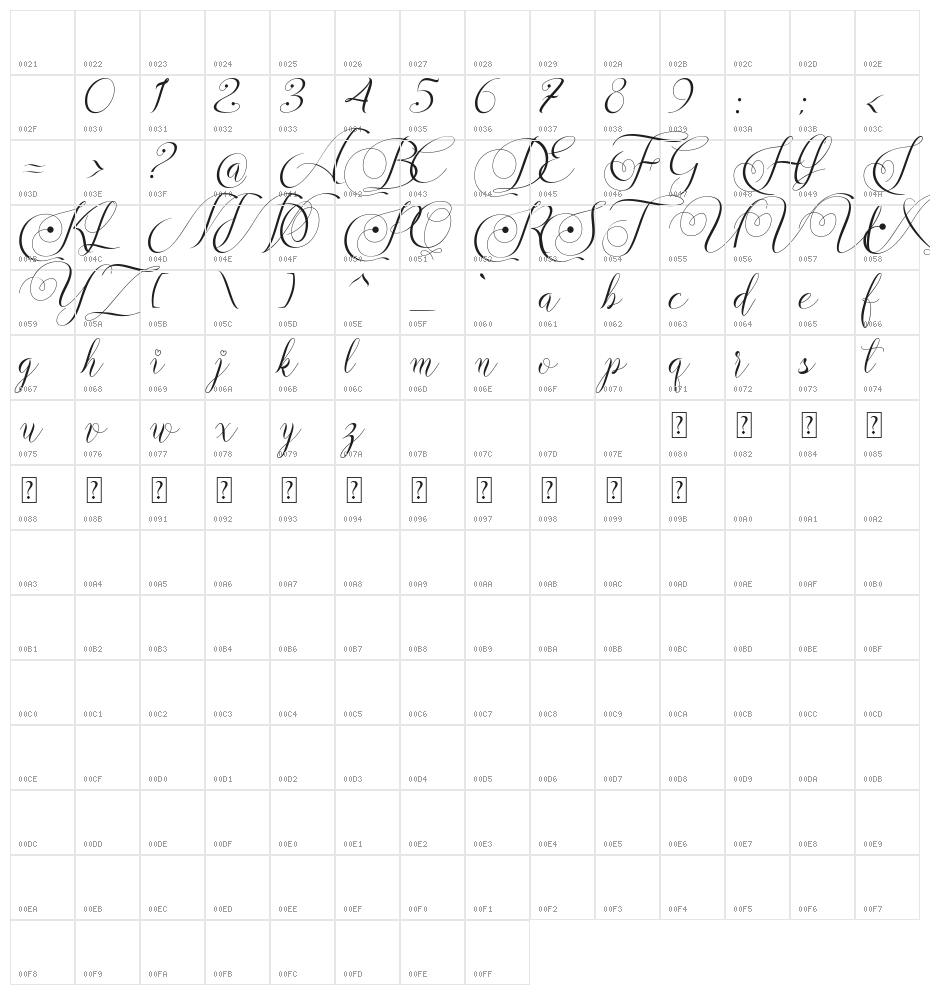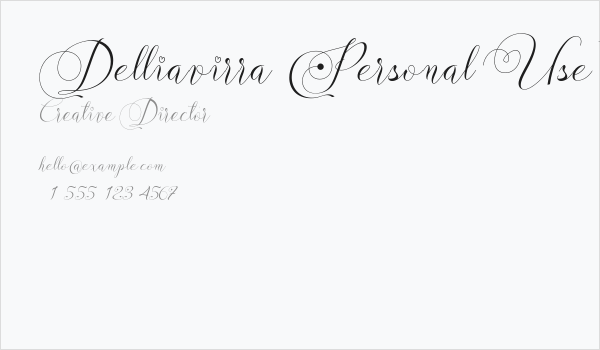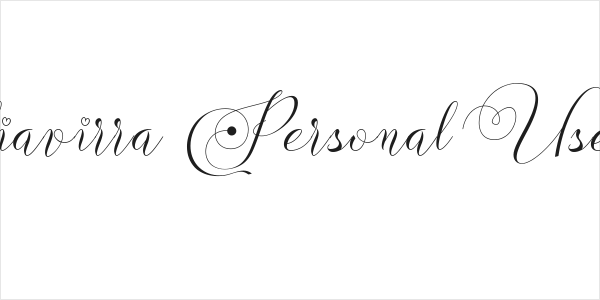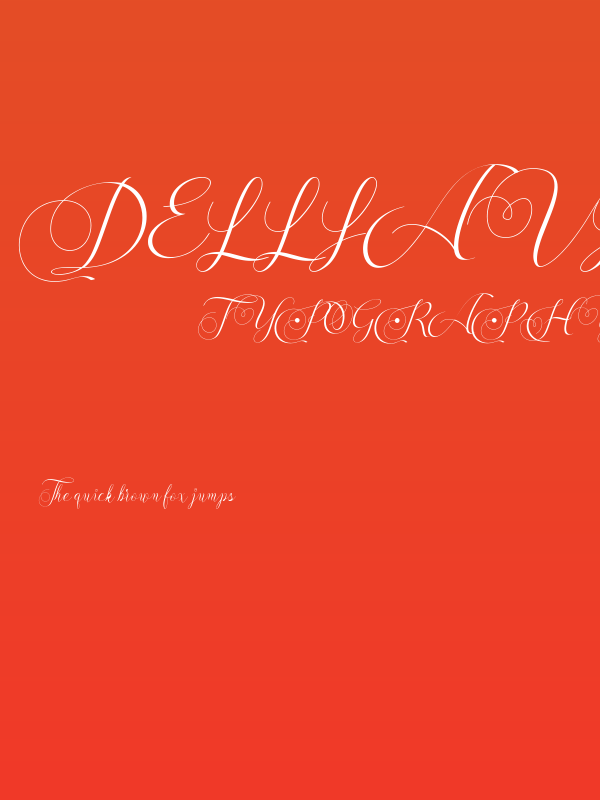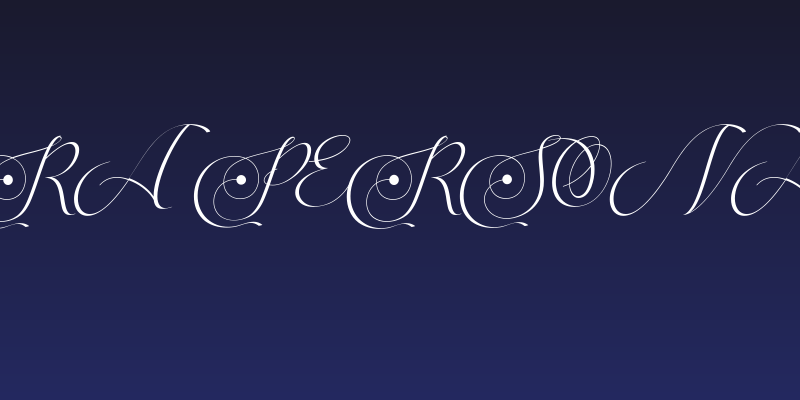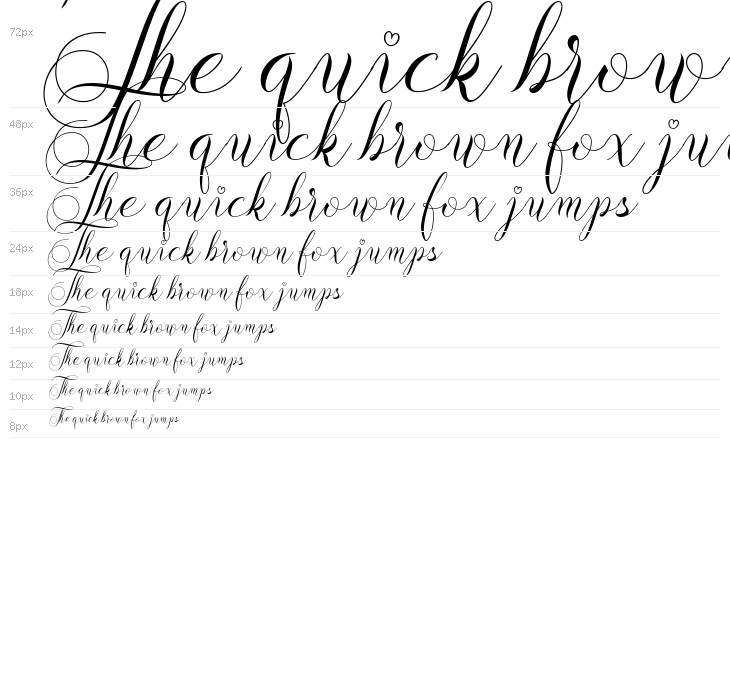
Delliavirra Personal Use Only Font
Delliavirra Personal Use Only Description
This elegant script font features a flowing, cursive style with intricate swirls and flourishes. The uppercase letters are particularly ornate, with elaborate loops and curves that give a sense of sophistication and grace. The lowercase letters maintain a consistent fluidity, enhancing readability while still retaining a decorative touch. Numbers are equally stylized, with distinctive curls that match the overall aesthetic. This font exudes a sense of romance and elegance, making it ideal for formal invitations, branding, and decorative purposes.
Use CaseInvitations, Branding, Decorative text
Proposed ProjectsIdeal for wedding invitations, luxury branding, greeting cards, and decorative signage.